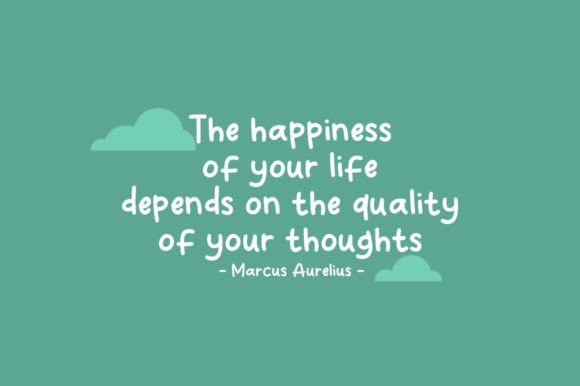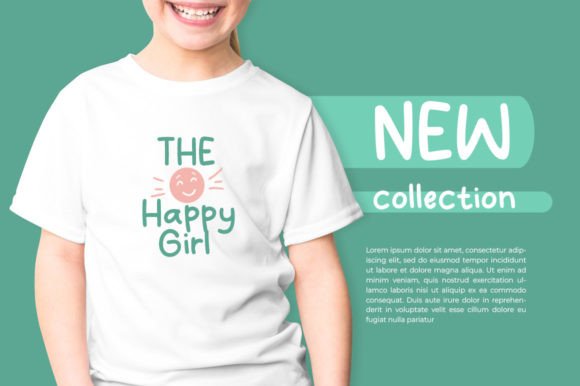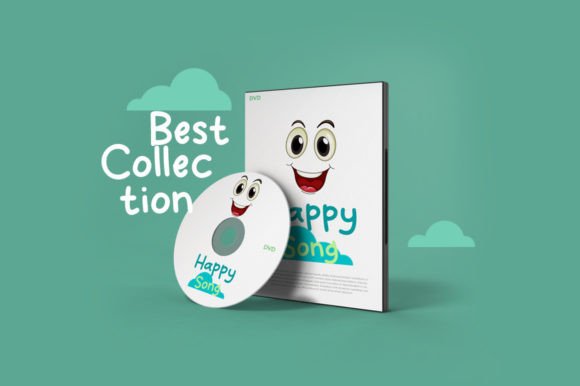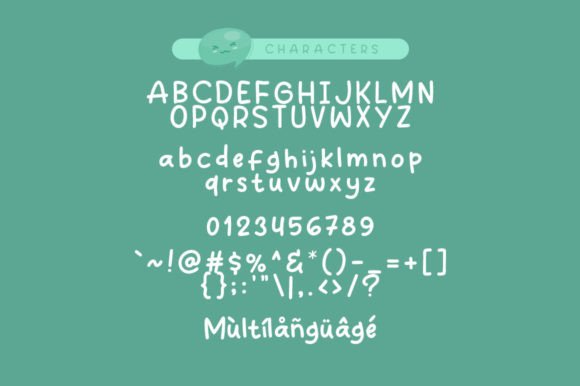
Introduction to Jade Smile Font
Jade Smile is a fun and cool display font.
Whether you use it for cartoon-related designs, childrenโs games, or just any creation that requires a playful touch, this font is the perfect choice for your designs .
Key Features of Jade Smile Font